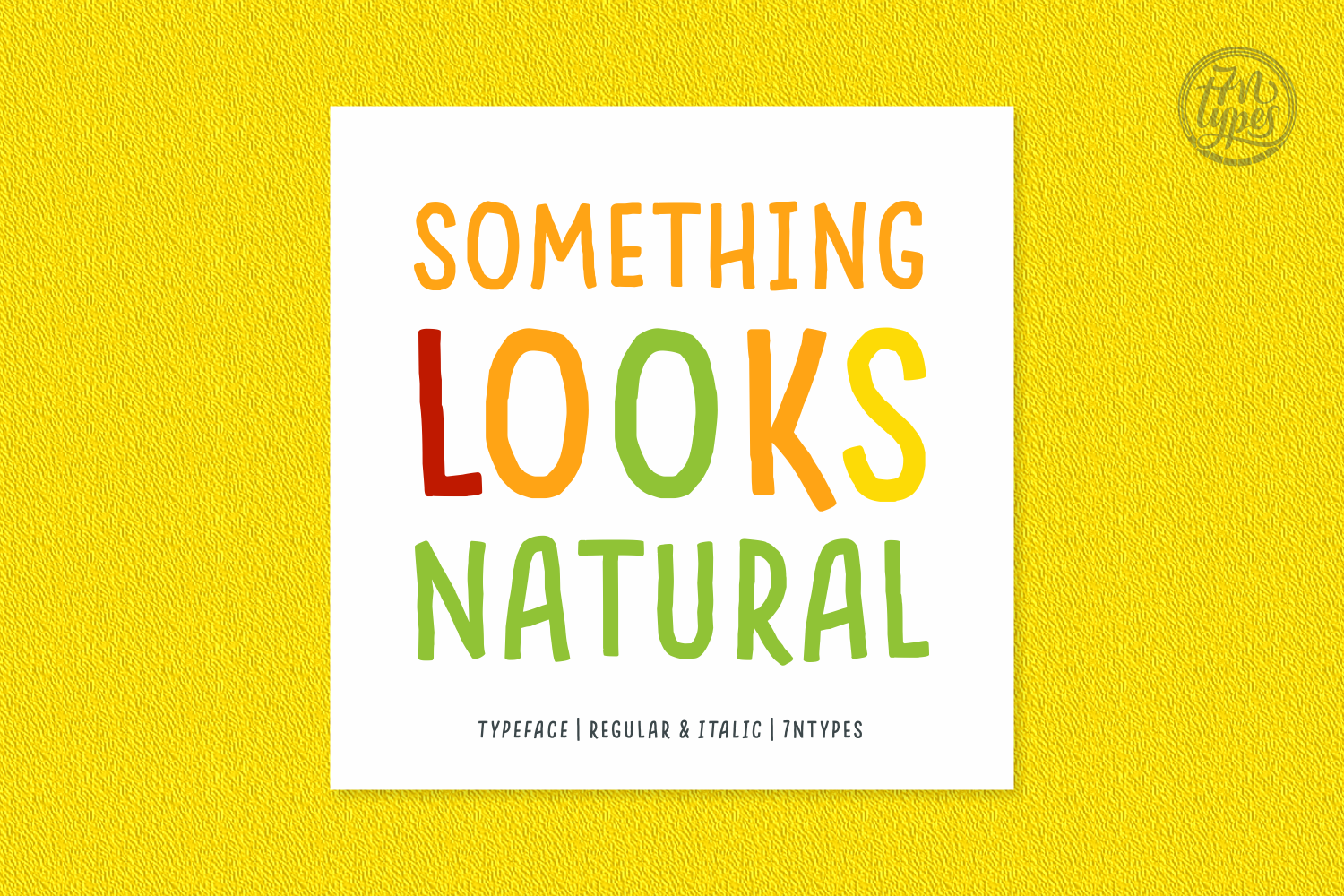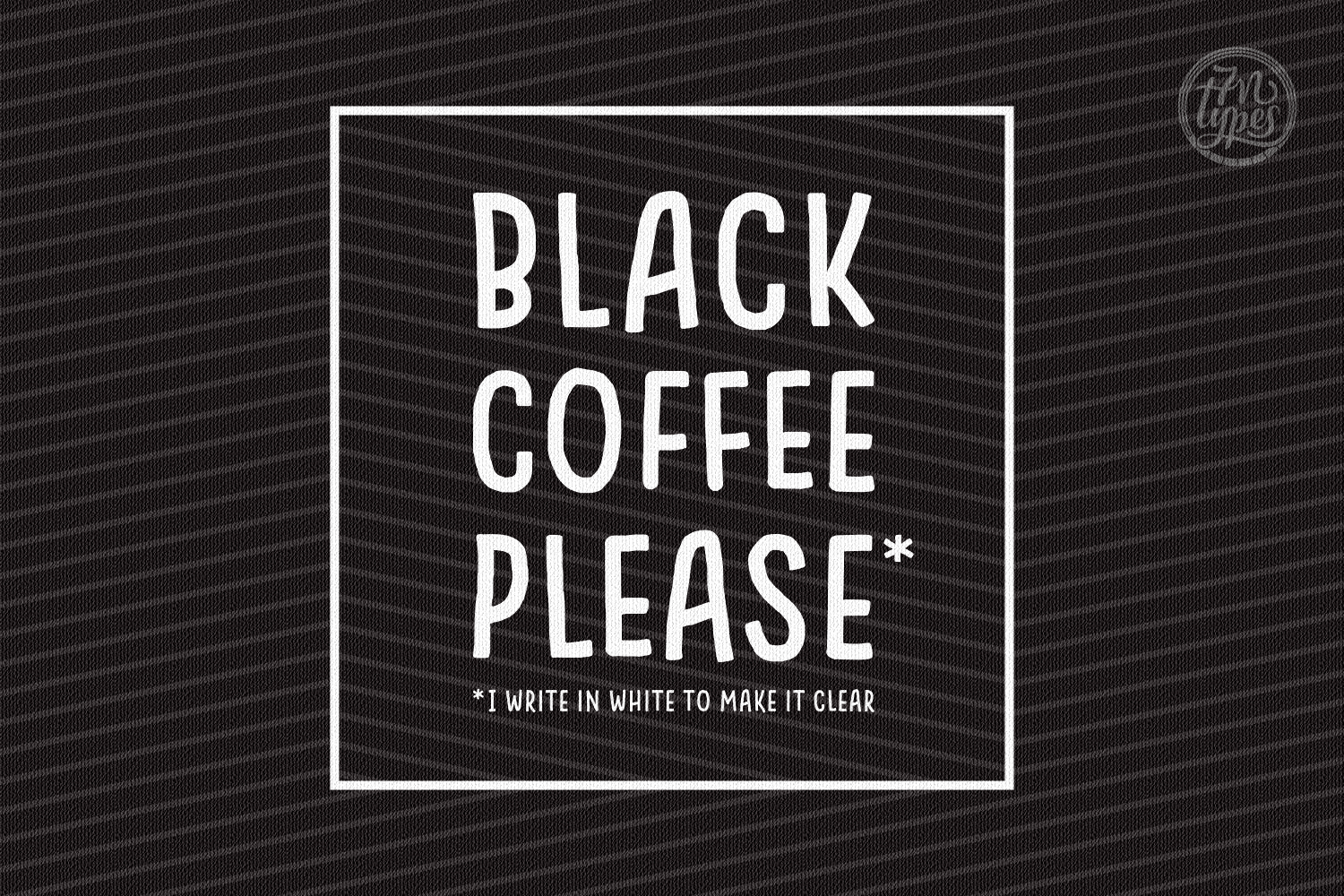
Something Looks Natural Font
About Something Looks Natural Font
Something Looks Natural is a playful typeface that comes in 2 variants: Regular & Italic
It’s a playful fun font that allows you to add a light-hearted touch to your designs.